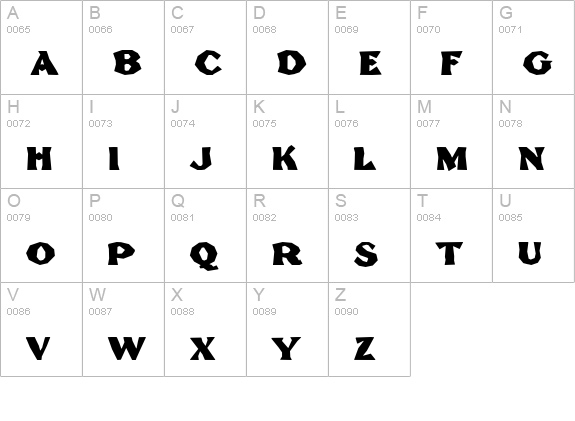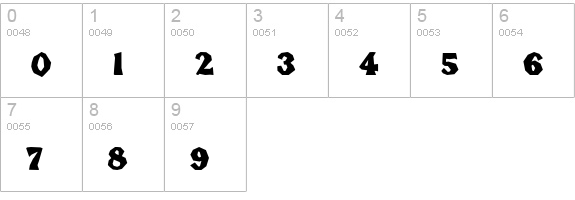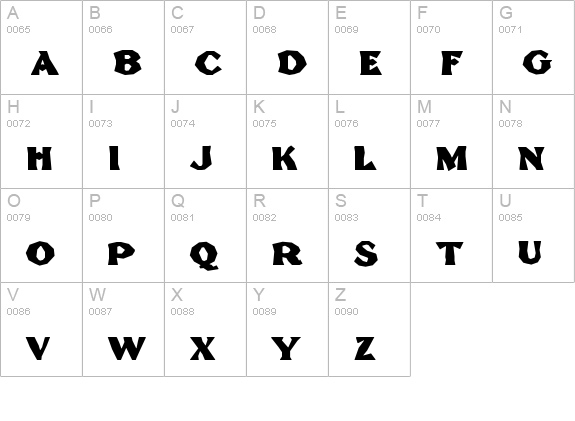
Tomahawk MF Font Details
Tomahawk MF is a striking and versatile display font that exudes a sense of power and modernity. With its sharp edges and bold design, this font is perfect for making a statement in headlines, logos, posters, and various other design projects. The unique character shapes and intricate details of Tomahawk MF make it stand out from the crowd and leave a lasting impression on viewers. The best part is that Tomahawk MF is completely free to download at FontsMarket.com. This means that you can use this distinctive font in your personal and commercial projects without any restrictions. Whether you're a designer looking to add a touch of edge to your work or a business owner seeking a font that commands attention, Tomahawk MF is the perfect choice. Download it today and let your creativity soar with this exceptional font.